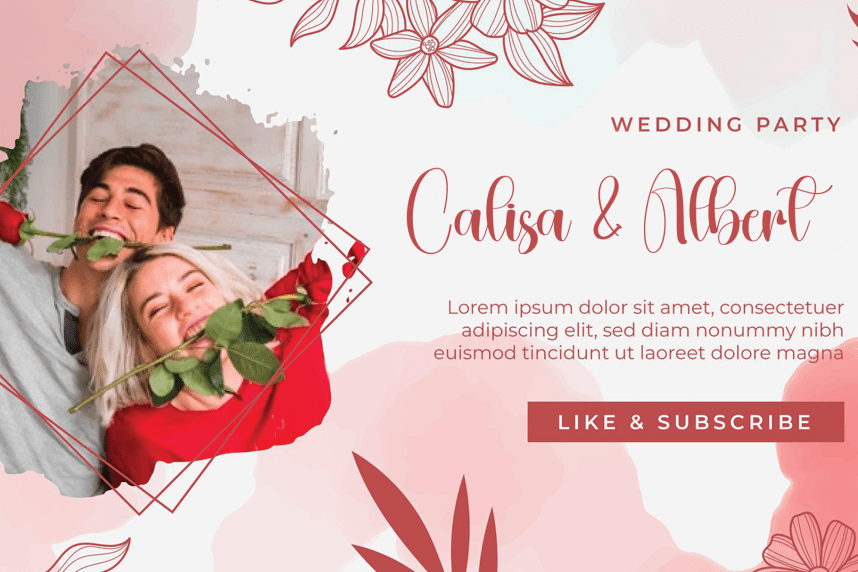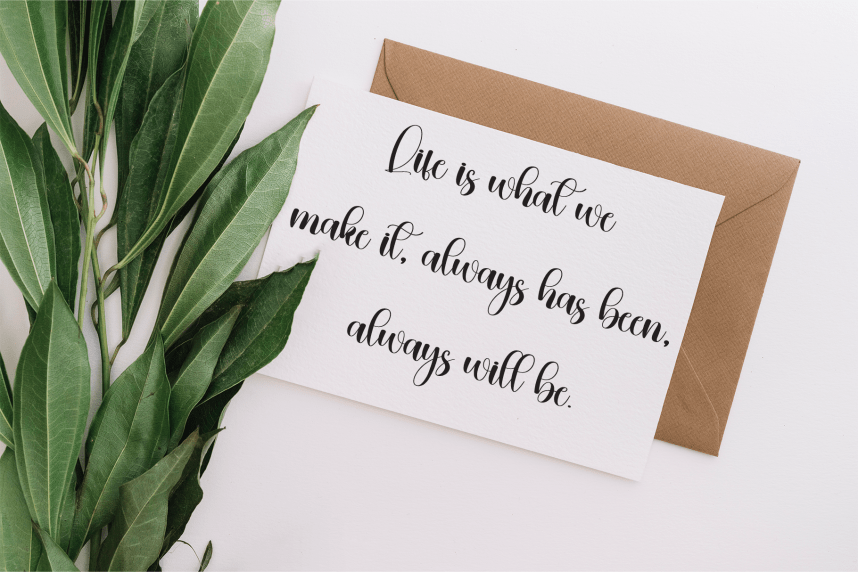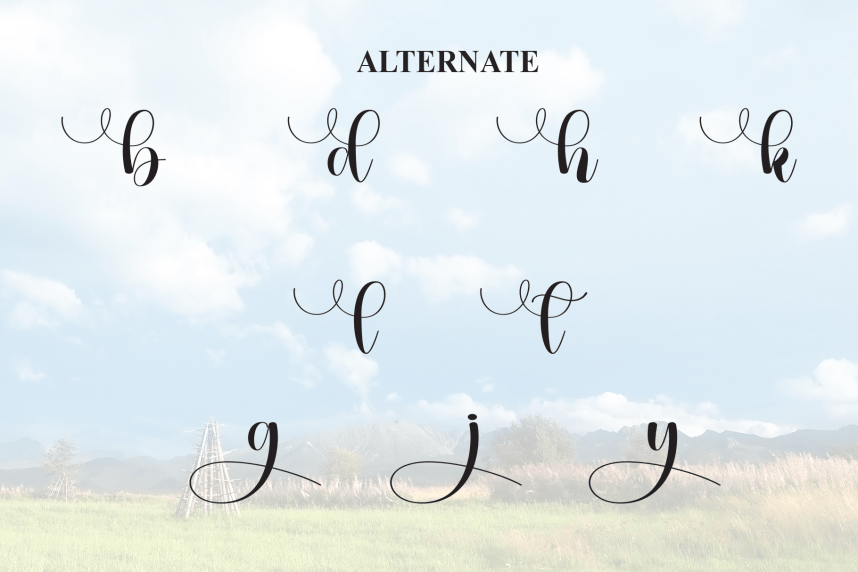
Hollyland – Authentic Handwritten Style Font, special creative products for you, our products will give you an extraordinary experience. the latest style letters are perfect for wall displays, wedding invitations, social media post logos, advertisements, product packaging, product designs, labels, photography, watermarks, invitations, stationery, and any project that requires taste handwriting.